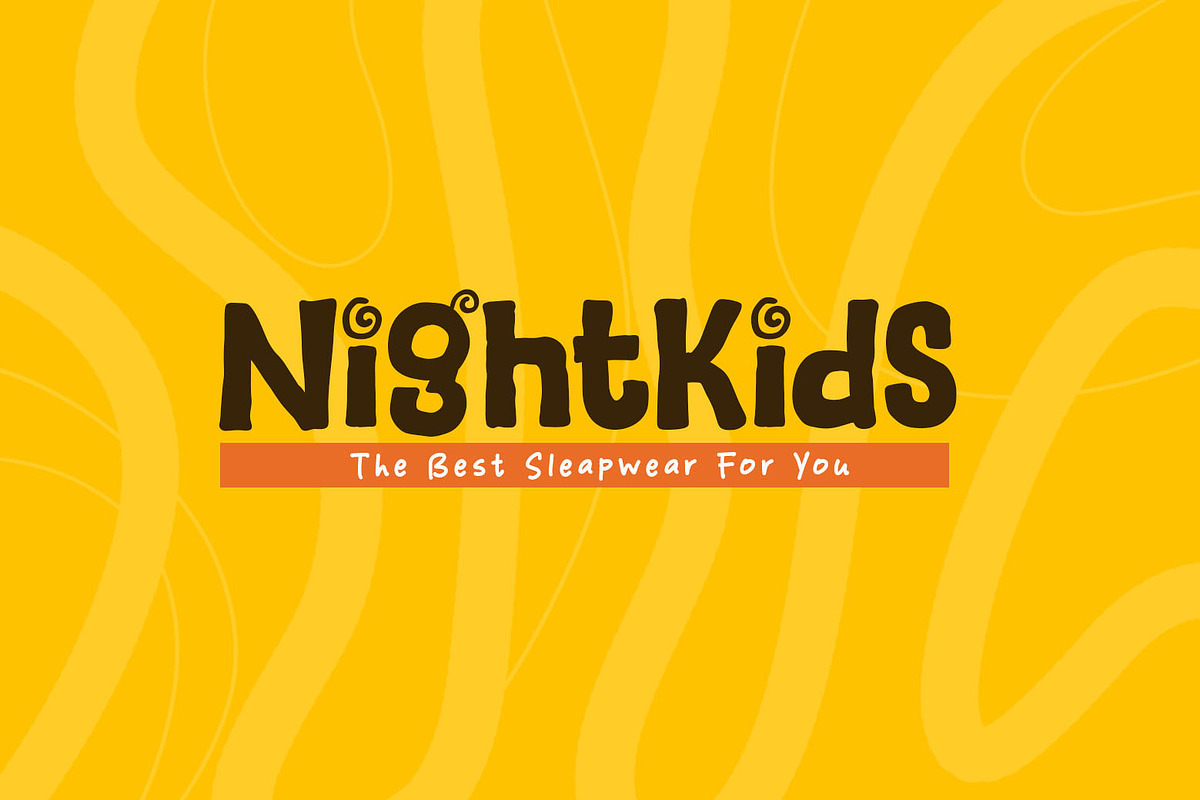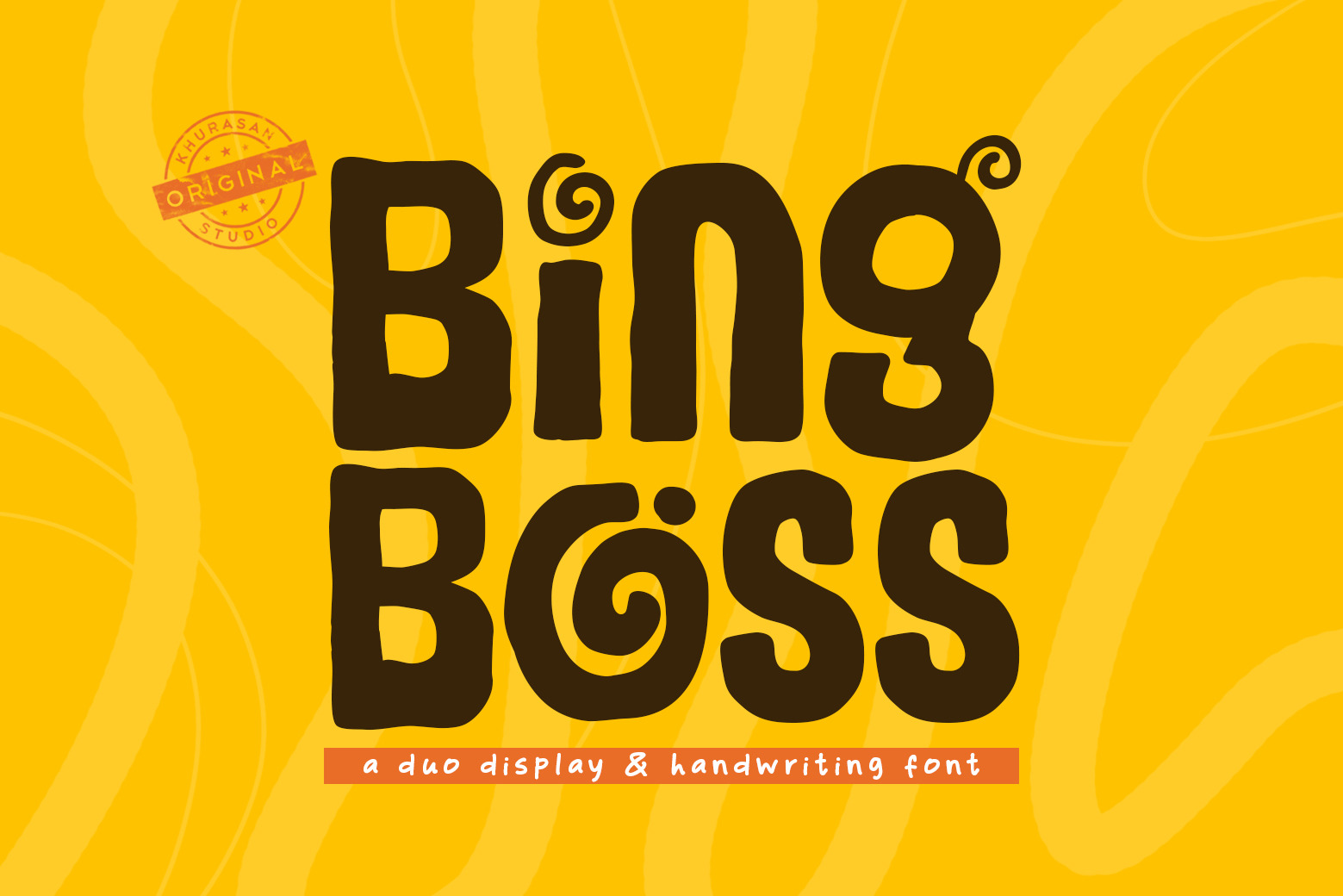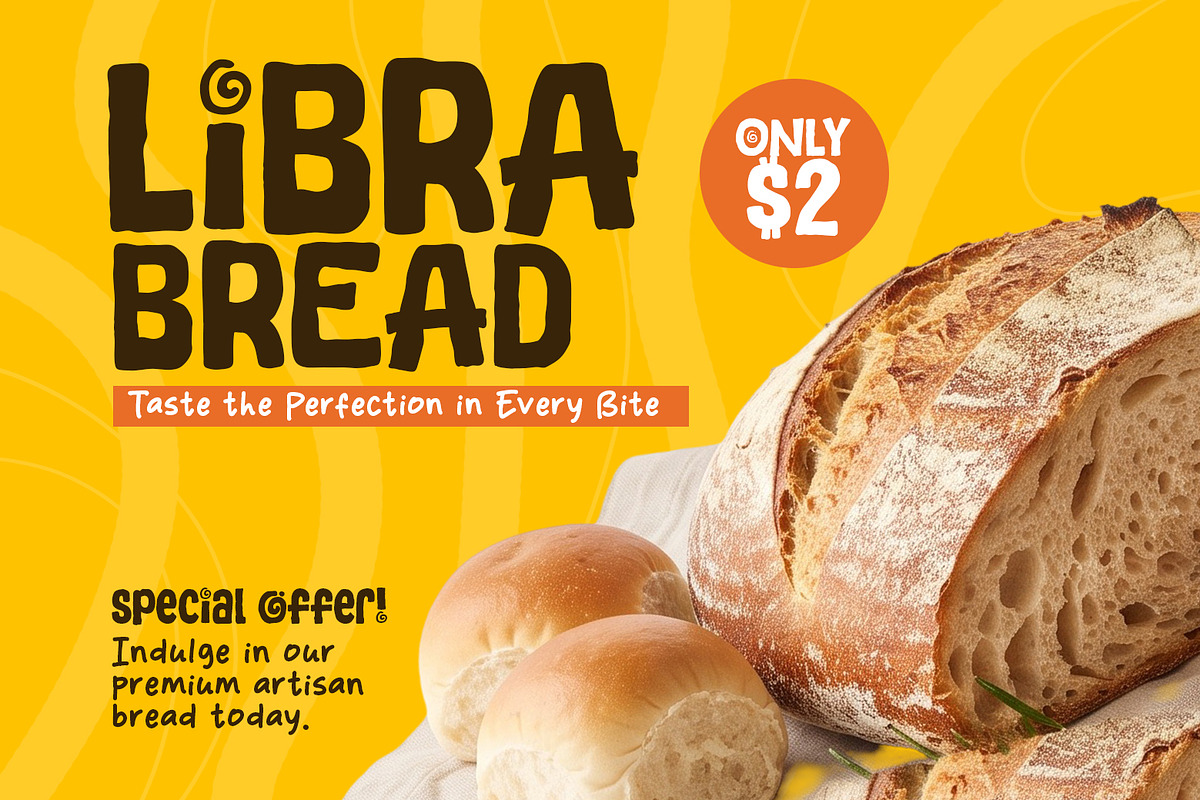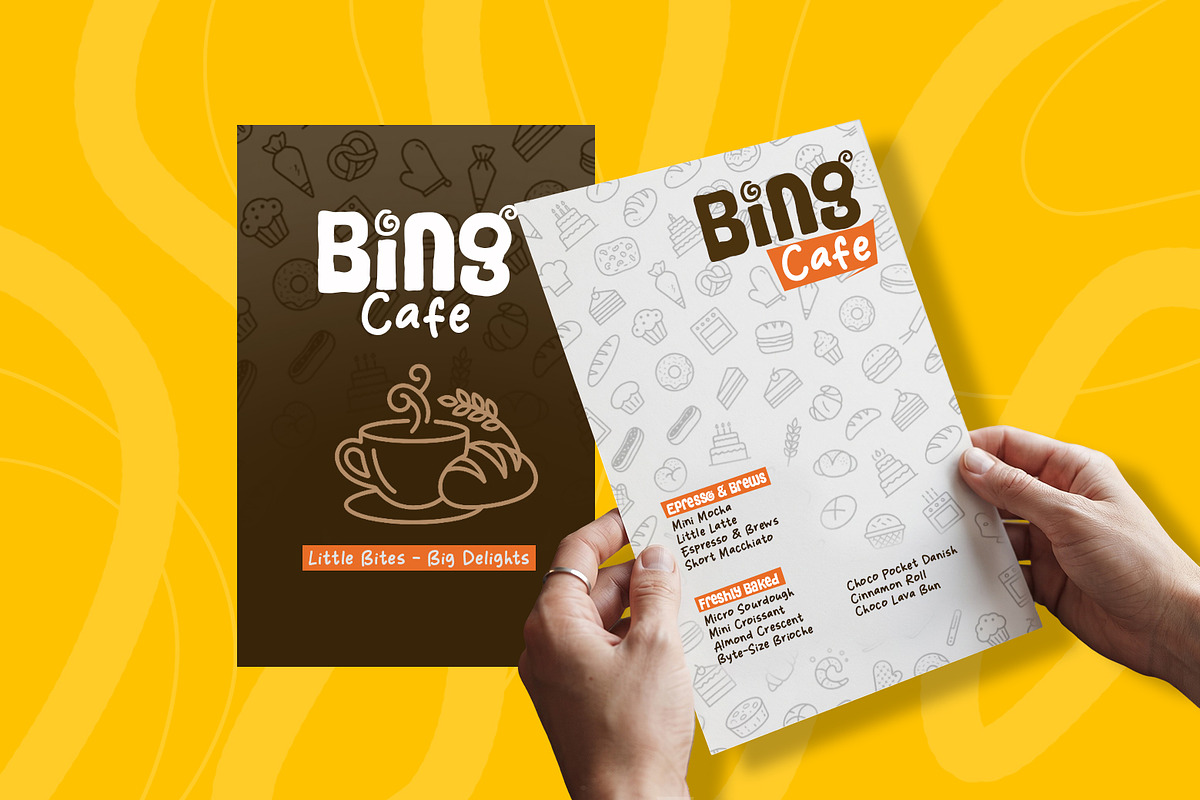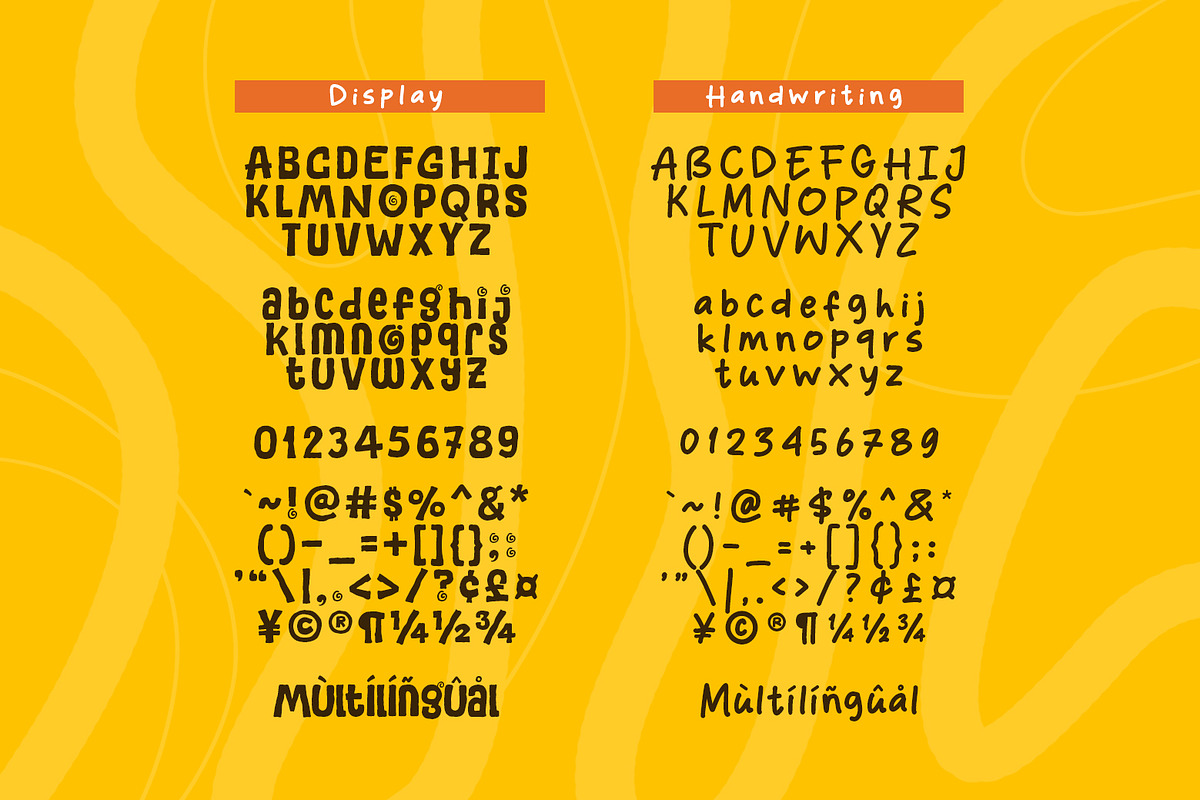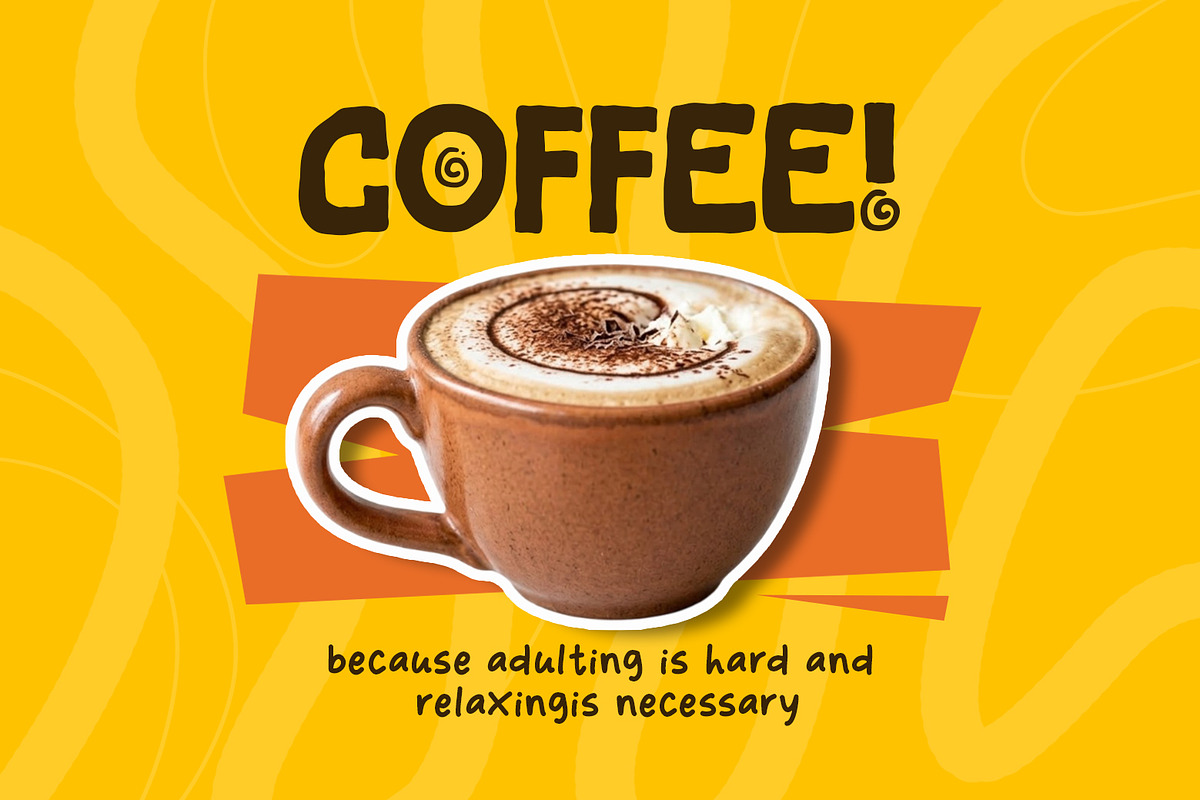
Bing Boss - Cozy & Display Font
Bing Boss is a fun, quirky, and bold duo font designed to bring cheerful energy and personality to your creative projects. Combining a chunky, expressive display style with unique swirl accents and an organic handwritten companion, this pair creates an eye-catching contrast that instantly grabs attention.
Its playful shapes, thick cutouts, and handcrafted feel make it ideal for designs that need to look friendly, vibrant, and approachable.
Standart Glyphs
Numberial and Functional